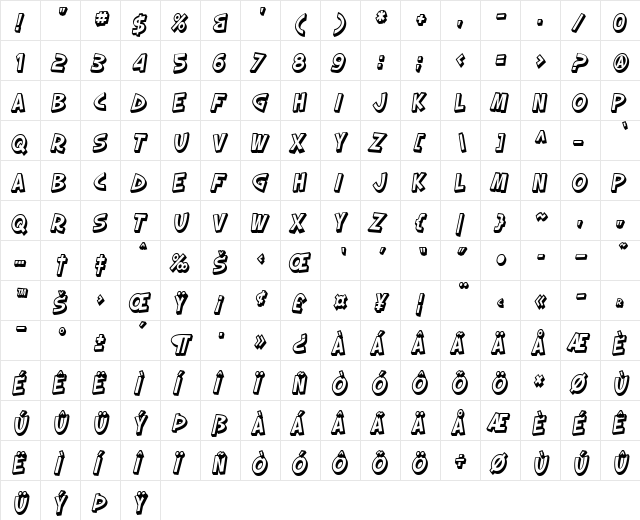
SF Slapstick Comic Shaded Oblique Font Preview
Design Context for SF Slapstick Comic Shaded Typeface
SF Slapstick Comic Shaded has an approachable, lighthearted character — its loose, expressive forms are well-suited to children's content, casual branding, and fun-first design. The slanted form adds forward momentum and visual energy.
Well-suited to food and beverage brands with personality, educational materials, and fun-forward identities.
Font Pairing: Pairs well with a rounded or humanist sans for body copy, maintaining the friendly tone without relying on SF Slapstick Comic Shaded to carry extended reading.
Pro Tip: Use SF Slapstick Comic Shaded at larger display sizes where its expressive character can land. Pair with a clean, simple sans for body copy to maintain readability.